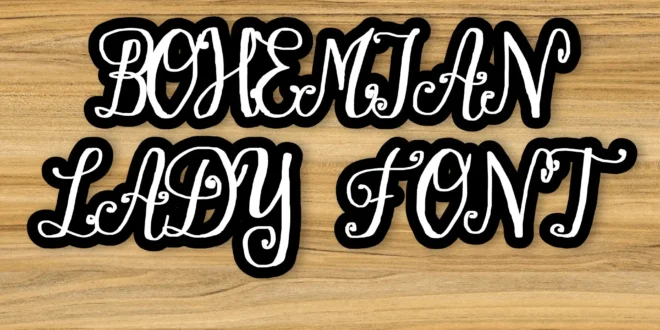
Bohemian Lady Font
The Bohemian Lady Font, distributed by Innovative Typography Studio on September 8, 2024, is a delightfully created typeface that draws motivation from the unique and imaginative bohemian style. Known for its complicated specifying and one-of-a-kind bends, the Bohemian Woman Textual style exemplifies a feeling of inventiveness, class, and independence. This typeface is ideal for creators who need to integrate a laid-back, yet refined stylish into their tasks. With its exquisite strokes and creative impact, the Bohemian Woman Textual style is a brilliant decision for solicitations, marking, and banners, and that’s only the tip of the iceberg.
Presenting Bohemian Woman Text style the main corporate typeface that can be utilized for specialized utility, traffic, and authoritative plans. Download it and use it now. To save the results of the genuine hand-letter like vag adjusted as a truckload as a greatest, there can be more than 100 ligature (You will see it between the show pictures).
This perfect present-day script focuses on a fab natively constructed design that is intended to make any banner stick out. The adornment is astonishing for fast titles and little expressions. It’s a great typeface. To use it for their ordinary planning techniques. Inside an equivalent way, you’re viewed as one of them then you’re inside the appropriate area. It consolidates a couple of qualities of gulim and gungush textual styles. You could simplify it to convey the directive for your design. The capital letters are actuated through brushstrokes that are like made Coachella and are exceptionally helpful to inspect.
Uses of Bohemian Lady Font
The Bohemian Lady Font is great for different plan projects, particularly where you need to impart a feeling of innovativeness, opportunity, and tastefulness. A portion of the essential purposes of this text style include:
1. Invitations: Whether you’re planning wedding solicitations, party welcomes, or any occasion-related plan, this text style adds a heartfelt and bohemian appeal, making it ideal for such tasks.
2. Branding: Brands that need to seem creative and novel can extraordinarily profit from this text style. Its delicate and streaming nature adds a dash of uniqueness, making it reasonable for way-of-life brands, style, and magnificence items.
3. Posters & Graphics: For banners, particularly with regards to creative, melodic, or widespread developments, the Bohemian Woman Text style conveys the right tone. It stands apart without being excessively striking, acquiring thoughtfulness regarding the message in a tastefully satisfying way.
4. Social Media: In the realm of web-based entertainment, where visuals matter, this text style can assist with making posts more attractive and stylishly lined up with patterns in design, workmanship, and way of life.
5. Logos: This text style’s carefully assembled and definite look makes it ideal for making critical and particular logos. It’s especially reasonable for organizations that need to show up as more private and innovative, like stores, bistros, or high-quality item vendors.
The Bohemian Lady Font has a place with decorative or display classification, making it ideal for eye-catching plans. It isn’t generally appropriate for body text however turns out best for titles, logos, and other enormous text style applications. The text style’s creative bends and complex subtleties mirror its bohemian impact, giving it a laid-back yet rich tasteful.
The text style is accessible in both capitalized and lowercase letters, and it additionally accompanies a few expressive substitutes and ligatures that make it significantly more flexible. These OpenType highlights permit creators to mess with various letter mixes and modify their ventures to make exceptional plans.